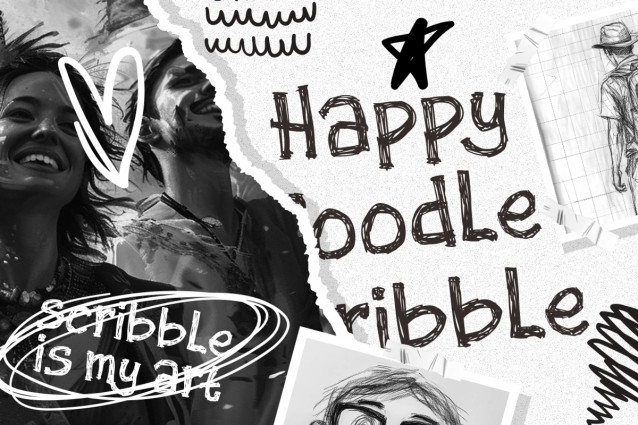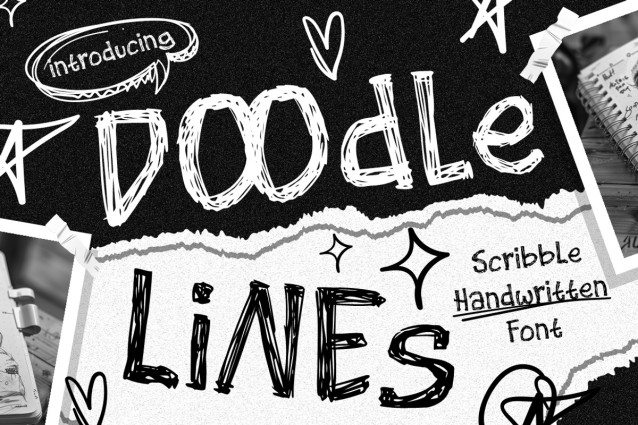
Doodle Lines Handwritten Font is a quirky and playful typeface designed to capture the spirit of spontaneous creativity. Each letter is crafted with a textured, hand-drawn look that resembles scribbles made with a pen or marker. The uneven strokes and sketch-like appearance give the font a natural and authentic doodle feel, perfect for projects that need a touch of fun and originality. With its friendly and carefree vibe, this font makes text feel alive, energetic, and full of character. The layout is casual yet legible, offering a unique balance between creativity and readability, making it an excellent choice for both digital and print use.
This font is versatile and can be used across a wide range of creative projects. Whether it’s for logos, posters, stickers, or children’s book covers, Doodle Lines instantly adds a hand-crafted charm. It also works wonderfully for branding, greeting cards, packaging, and playful movie titles. Its lively scribble strokes make it especially appealing for kid-friendly designs, DIY crafting, and artistic projects that call for an authentic handmade touch. With multilingual support and a full set of characters, Doodle Lines ensures flexibility and creativity without limits. This font isn’t just a typeface—it’s an invitation to bring doodles, giggles, and imagination into your design work.